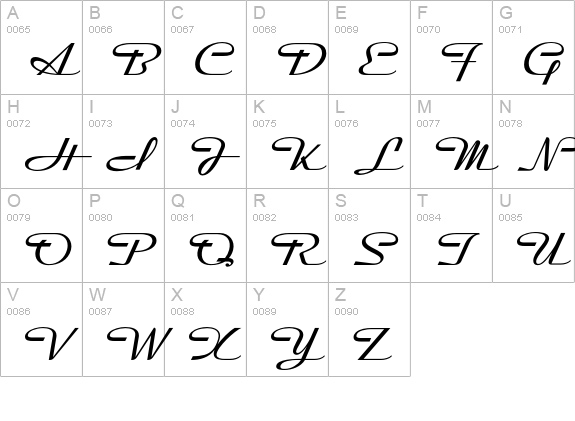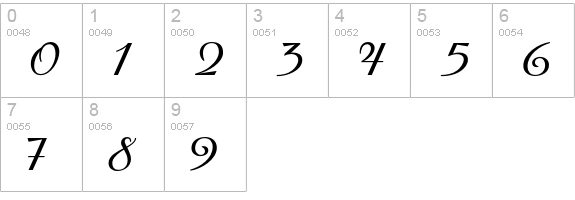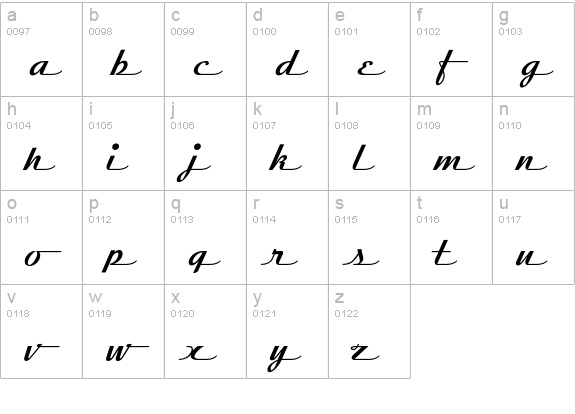
Streamline-Light Font Details
Streamline-Light is a refined, elegant variant in the Streamline typeface family \xE2\x80\x94 well suited to elegant body text, refined sub-headings, and luxury branding.
Streamline-Light font is a modern and elegant typeface that exudes sophistication and style. With its sleek lines and clean curves, this font is perfect for a wide range of design projects, from branding to editorial design. Its light weight adds a touch of delicacy and refinement to any text. The best part? Streamline-Light font is completely free to download at FontsMarket.com. This means you can access this high-quality font without any cost, making it a valuable addition to your font collection. Don't miss out on the opportunity to enhance your designs with the timeless appeal of Streamline-Light font. Download it now and elevate your design projects to the next level.